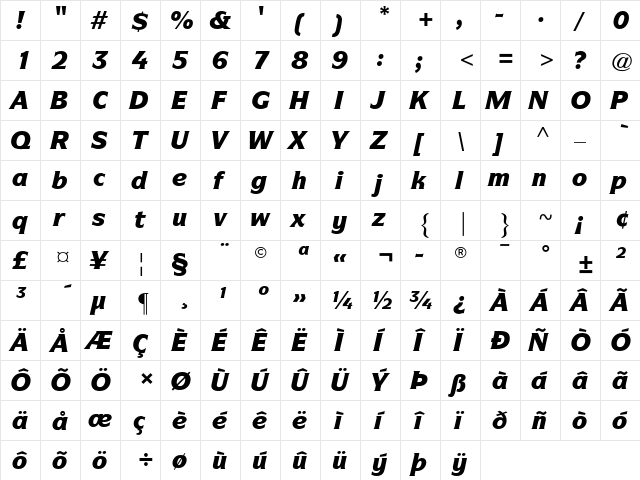
ITCSymbol Black Italic
Design Context for ITCSymbol Black Typeface
ITCSymbol Black is a composed and adaptable typeface that performs quietly and consistently across a wide range of design contexts. Its italic angle brings a sense of urgency and motion to the letterforms.
Pro Tip: Use ITCSymbol Black for emphasis, pull quotes, and subheadings where its slanted energy can add rhythm to the layout.